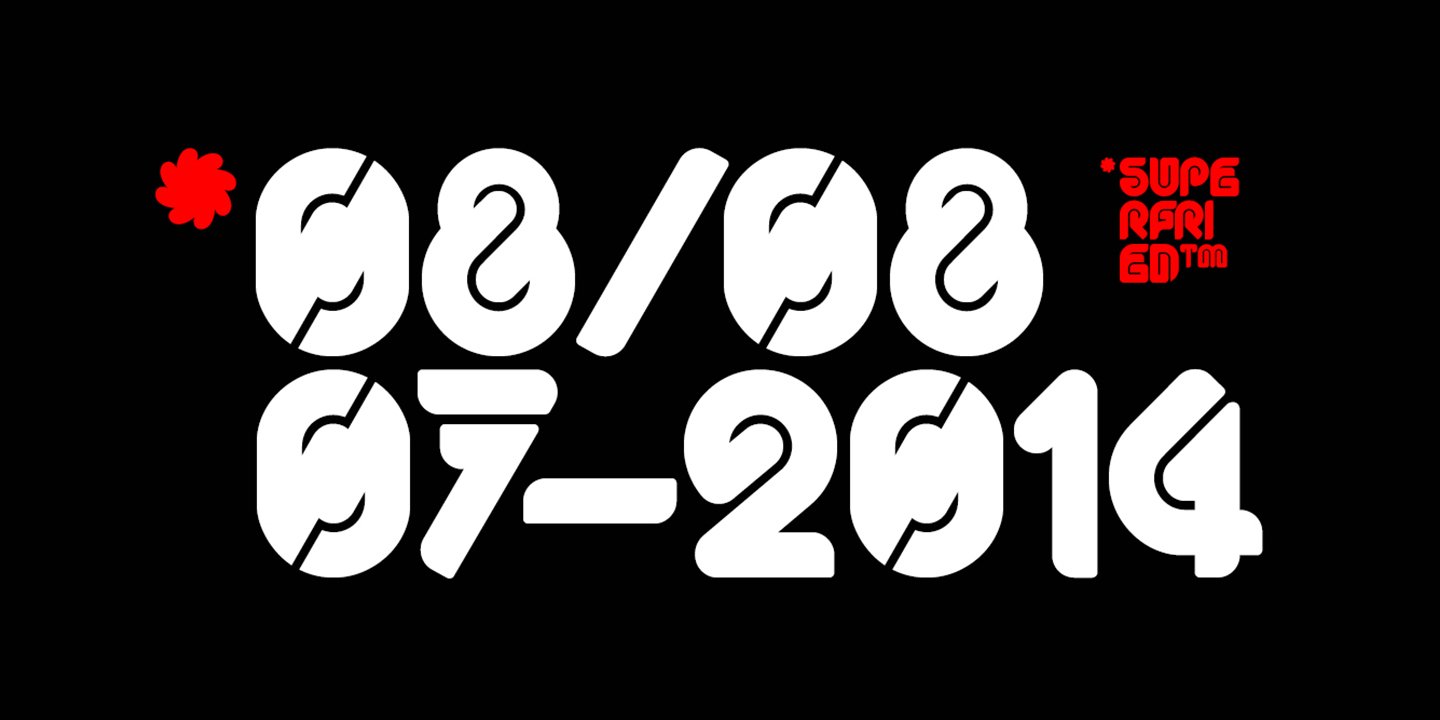
Twist Font is perfect for dance studio branding, spiral staircase designs, creative agency materials, dynamic movement campaigns, innovative product packaging, experimental art projects, energetic event promotions, flexible yoga studio signage, revolutionary brand identities, and dynamically spiraling marketing communications.
Twist Font is exciting because it captures the kinetic energy and creative momentum of dynamic movement with its spiraling letterforms that seem to dance and rotate with the fluid grace of dancers and the innovative spirit that drives creative breakthroughs. Its dynamically twisted character design reflects both the flexibility required for artistic innovation and the energetic motion that transforms static ideas into compelling visual experiences, making it perfect for brands celebrating creativity, movement, and revolutionary thinking.
Twist Font family includes thin, light, regular, medium, bold, and black weights, each with corresponding italic versions. The font family also features spiral ornaments, dynamic ligatures, movement symbols, and rotating decorative elements that enhance its kinetic aesthetic and creative versatility.
This dynamically creative typeface represents the perfect fusion of artistic movement and innovative design. Twist Font Free Download allows designers to experience its spiraling potential before making a commercial commitment. The font's ability to convey both creative energy and flexible innovation makes it ideal for creative agencies, dance studios, and innovative brands targeting audiences seeking dynamic experiences and creative transformation.
Whether you're developing creative studio identities, designing movement-focused materials, or creating innovative brand communications, Twist Font brings an unmistakable sense of kinetic energy and creative revolution to every project. Its twisted character and movement heritage create powerful connections that resonate with audiences seeking dynamic change and creative innovation.
The font's versatility excels in creative and movement environments where energy and innovative thinking are paramount. Its spiraling character makes it particularly effective for dance studios, creative agencies, fitness brands, and innovative companies seeking to establish dynamic relationships with audiences passionate about movement, creativity, and revolutionary change.
For designers working on projects requiring genuine creative energy and dynamic appeal, Twist Font offers an exceptional solution. Its spiraling presence and comprehensive movement-themed elements provide the tools needed for creating truly kinetic communications, while its flexible innovation ensures your designs capture the dynamic energy and creative revolution that defines the most compelling movement experiences and transformative creative breakthroughs.